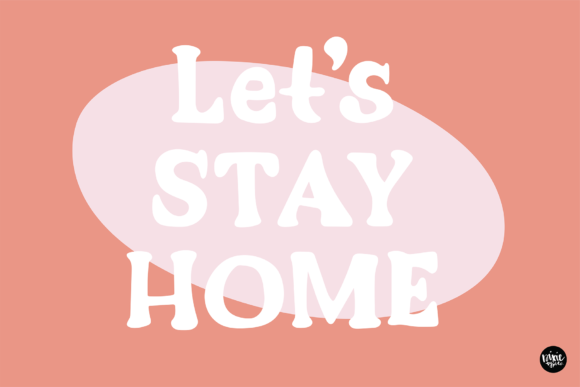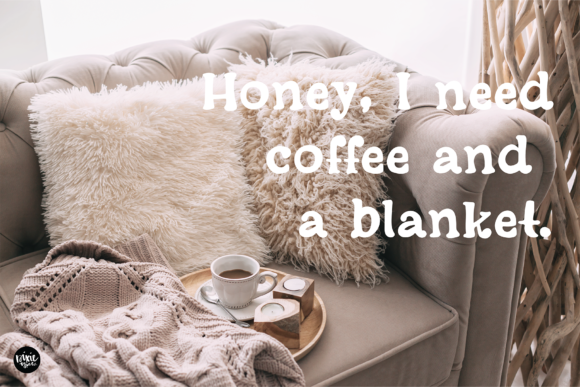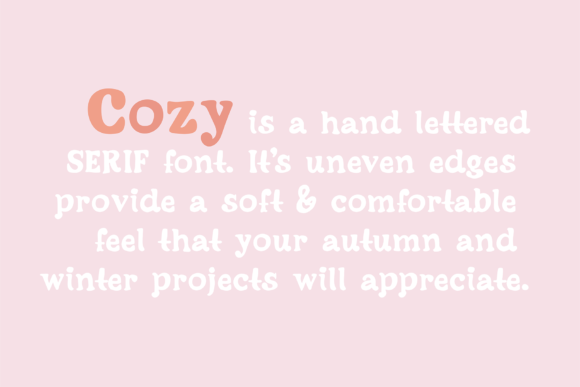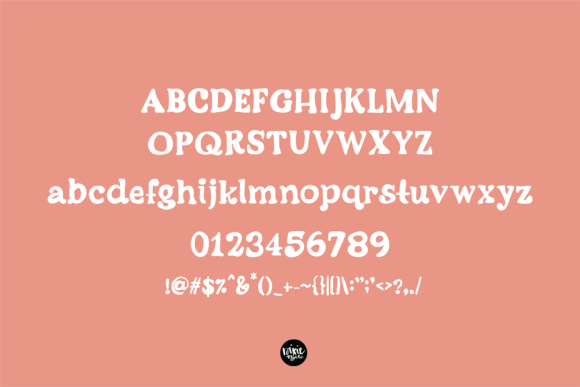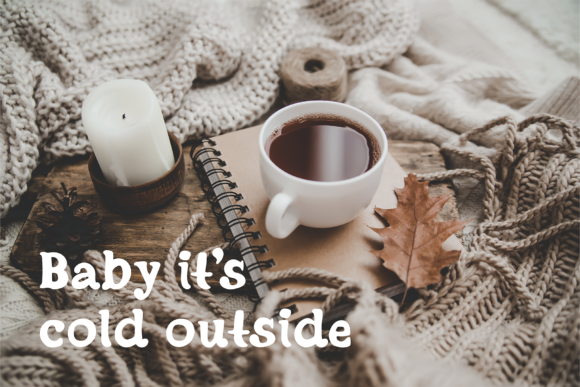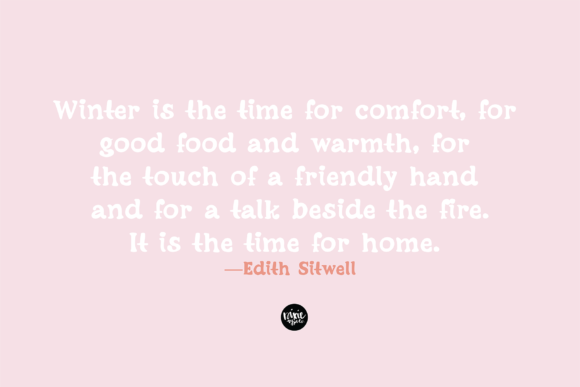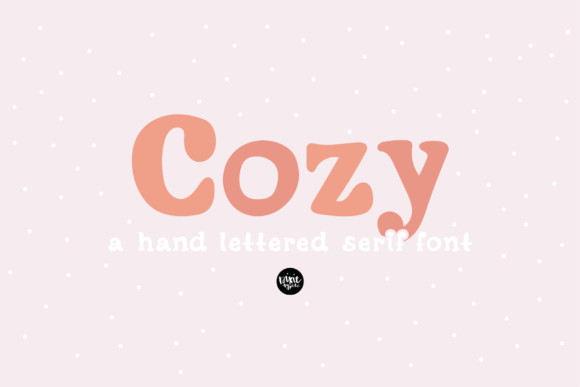
Introducing Cozy Font: The Ultimate Display Font for Creative Projects
Are you tired of using the same old fonts for your creative projects? Do you want to add a touch of personality and uniqueness to your designs? Look no further than Cozy Font, a bold and chunky lettered display font that’s sure to make your ideas stand out.
What is Cozy Font?
Cozy Font is a display font that’s designed to make a statement. Its bold and chunky letters are perfect for adding a touch of warmth and personality to your designs. Whether you’re working on a logo, a poster, or a social media graphic, Cozy Font is the perfect choice.
Key Features of Cozy Font
- Bold and Chunky Letters: Cozy Font features bold and chunky letters that are sure to grab attention.
- Unique and Playful Design: The font’s unique and playful design makes it perfect for creative projects that require a touch of personality.
- Easy to Read: Despite its bold and chunky design, Cozy Font is easy to read, making it perfect for use in a variety of contexts.
- Versatile: Cozy Font can be used for a wide range of creative projects, from logos and posters to social media graphics and more.
Why Use Cozy Font?
There are many reasons why you should consider using Cozy Font for your creative projects. Here are just a few:
- Add a Touch of Personality: Cozy Font is the perfect way to add a touch of personality and uniqueness to your designs.
- Stand Out from the Crowd: With its bold and chunky design, Cozy Font is sure to make your designs stand out from the crowd.
- Perfect for Creative Projects: Cozy Font is perfect for use in a wide range of creative projects, from logos and posters to social media graphics and more.
How to Use Cozy Font
Using Cozy Font is easy. Here are a few tips to get you started:
- Use it as a Display Font: Cozy Font is perfect for use as a display font, making it ideal for headings and titles.
- Experiment with Different Colors: Cozy Font looks great in a variety of colors, so don’t be afraid to experiment and find the perfect color for your design.
- Pair it with Other Fonts: Cozy Font can be paired with other fonts to create a unique and interesting design.
Cozy Font in Action
Cozy Font can be used in a wide range of creative projects, from logos and posters to social media graphics and more. Here are a few examples of how Cozy Font can be used:
- Logos: Cozy Font is perfect for use in logos, adding a touch of personality and uniqueness to your brand.
- Posters: Cozy Font is great for use in posters, making it easy to grab attention and convey your message.
- Social Media Graphics: Cozy Font is perfect for use in social media graphics, adding a touch of personality and uniqueness to your posts.
Cozy Font is a bold and chunky lettered display font that’s perfect for adding a touch of personality and uniqueness to your creative projects. With its unique and playful design, Cozy Font is sure to make your ideas stand out. So why wait? Download Cozy Font today and start creating amazing designs that will leave a lasting impression.